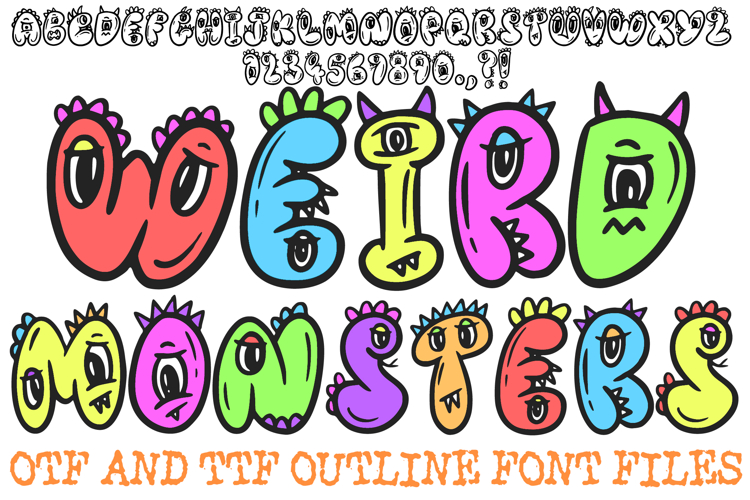
Unleash a horde of playful creatures onto your page with the Weird Monsters Cartoon Font! This hand-drawn display alphabet reimagines every letter and number as a unique, colorful monster, complete with expressive eyes, jagged teeth, and vibrant horns or spikes. It is the perfect high-energy choice for Halloween party invitations, children’s apparel, quirky stickers, and engaging classroom decorations.
Each character is a standalone piece of art, blending a bold "bubble" silhouette with mischievous, doodle-style features that bring your text to life. Whether you are designing a "spooky-cute" birthday banner or adding personality to a gaming-themed project, this font delivers an instant dose of fun and monstrous character to every word.
Why These Monsters Are a Must-Have:
Expressive Monster Details: Each character features unique hand-drawn elements like googly eyes, sharp fangs, and colorful scales.
Bold Bubble Silhouettes: Thick, rounded outlines ensure that your text remains highly visible and friendly, never too scary.